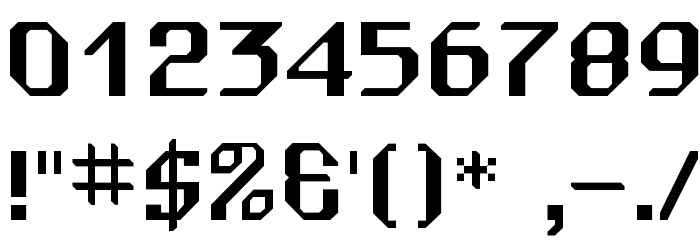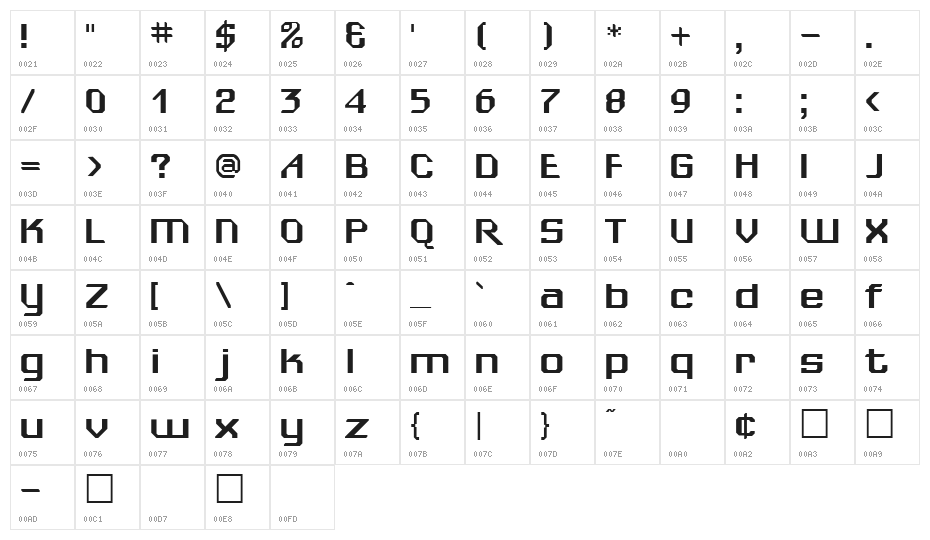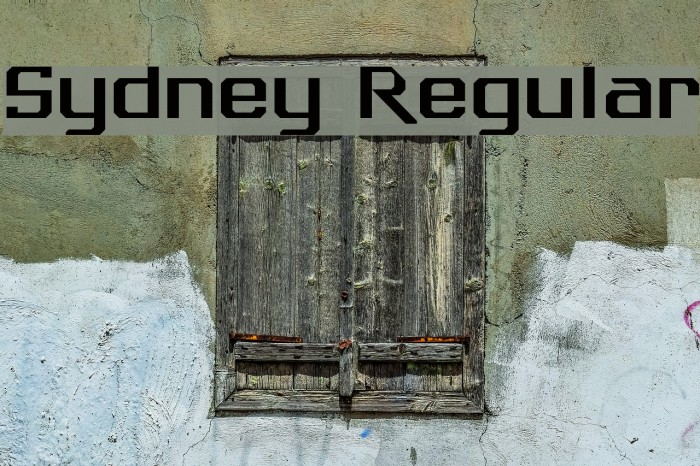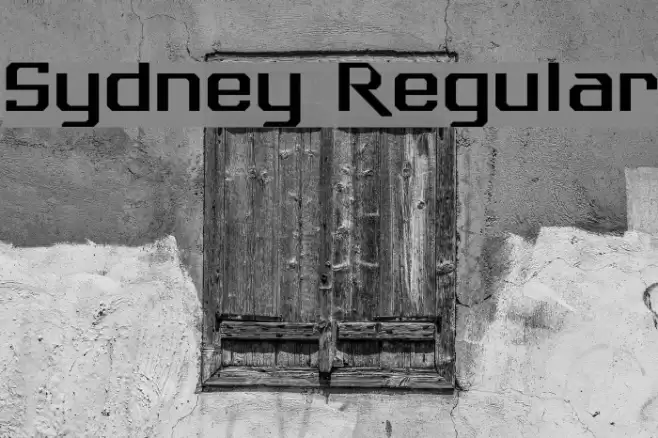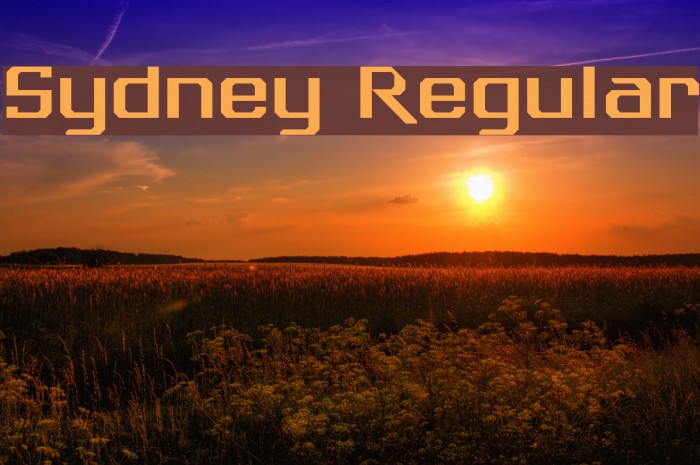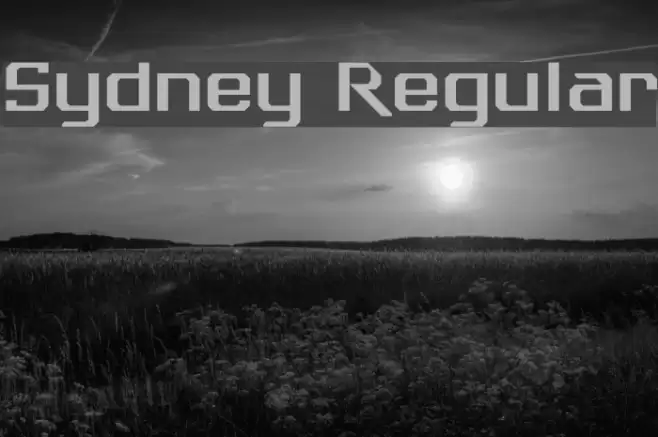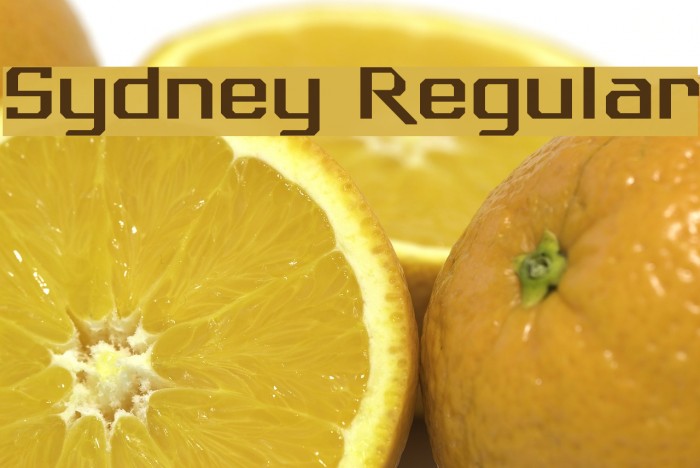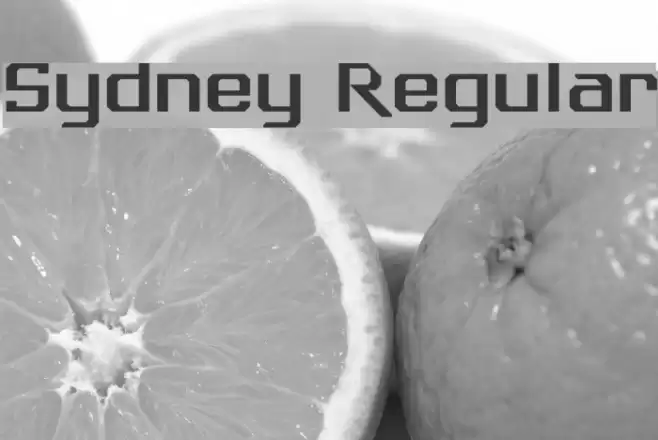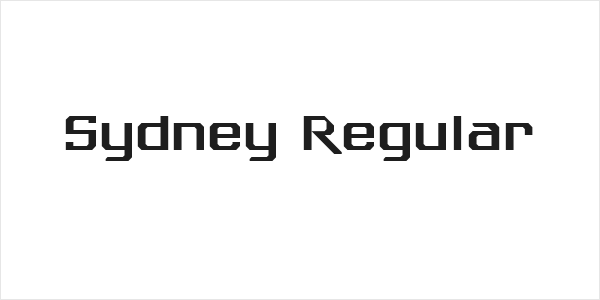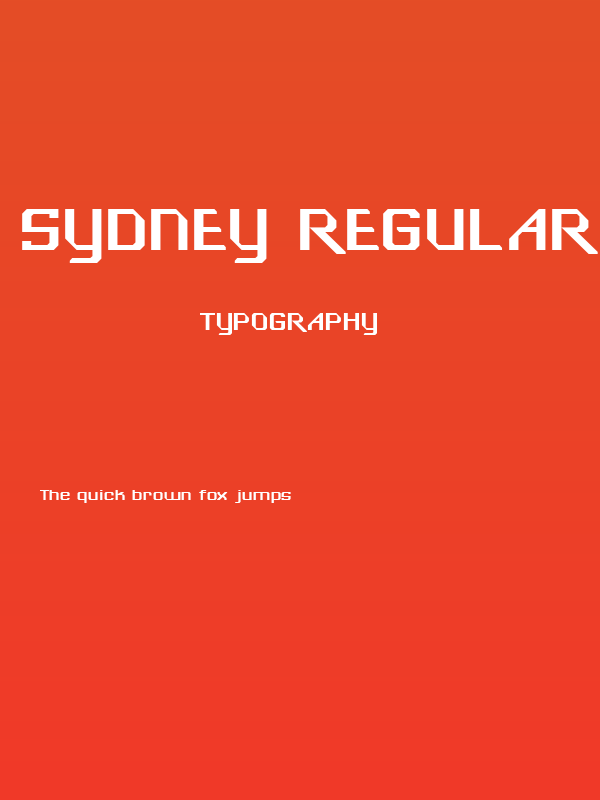
This font features a geometric and modern design with a distinct angular style. The characters are bold and have a uniform stroke width, giving them a strong and impactful appearance. The uppercase and lowercase letters maintain a consistent height, contributing to a cohesive look. The numerals and special characters follow the same angular theme, ensuring visual harmony across all elements. The font's clean lines and sharp edges make it suitable for contemporary design projects, where a bold statement is desired.
| Proposed Projects | Ideal for branding, posters, headlines, and digital media where a modern and bold aesthetic is needed. |